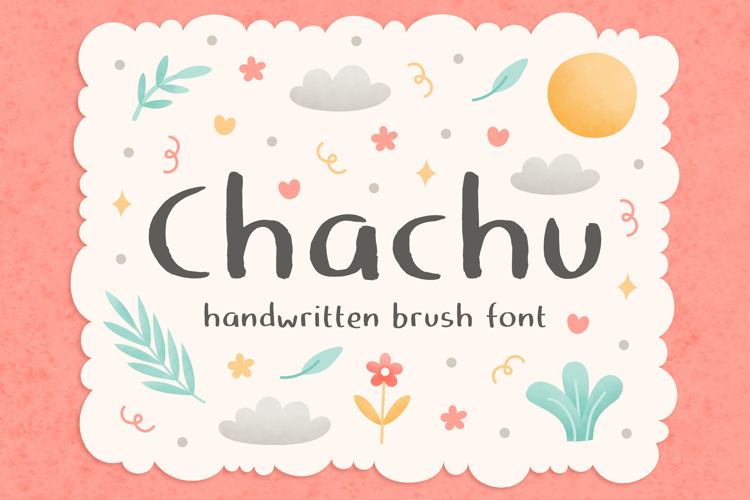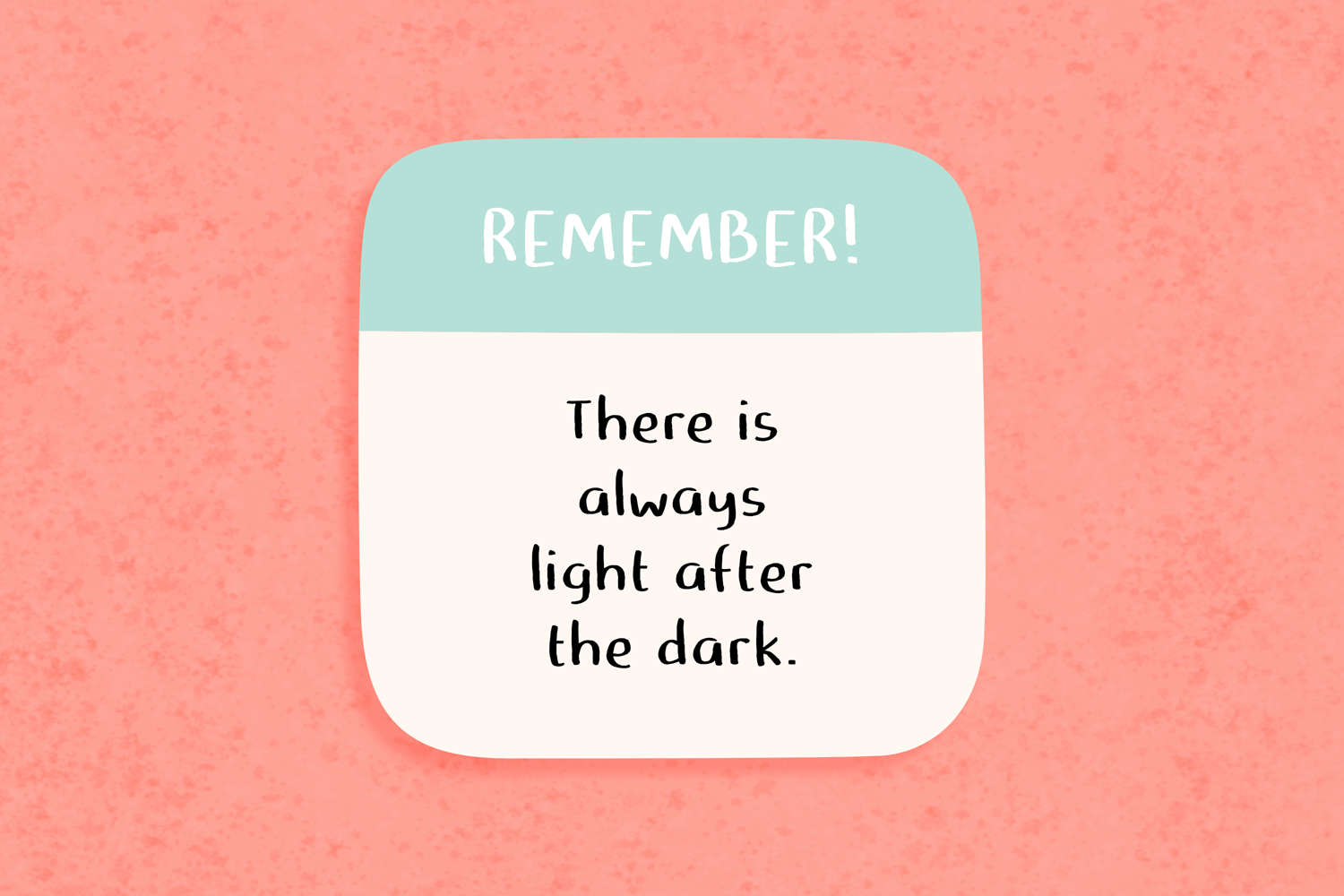
Introducing Chachu, a handwritten brush font. Ideal for bold posters, accentuated quotes, and so much more, Chachu imbues any text with a note of individuality. Enjoy the enchantment of Chachu, where creativity meets personality.
Chachu